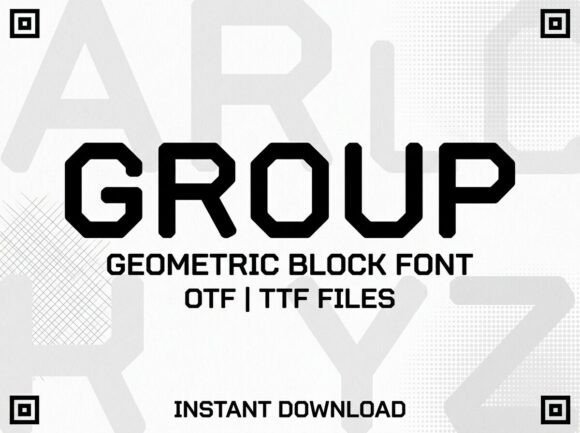
Unleash Your Creativity with Group Font
Do you remember the moment when a single design element suddenly clicked into place, and your entire project came together in a flash of inspiration? That’s exactly what Group Font is designed to spark in your creative journey. This stunning decorative display font is the ultimate game-changer for designers who crave attention-grabbing headlines, artistic logos, and unique packaging that sets them apart from the crowd.
Group Font is a masterclass in bold, eye-catching typography, featuring unique artistic elements that demand to be seen. With its versatility and professional finish, it’s the perfect addition to any designer’s toolkit. Whether you’re a seasoned pro or just starting out, Group Font is an invaluable asset that will elevate your designs and leave a lasting impression on your audience.
- Unique Characteristics: Group Font features a unique blend of modern and vintage elements, making it an ideal choice for designers seeking a distinctive look.
Group Font Review
Overall, Group Font is a solid choice for your next project, but it has its pros and cons. Here’s what I think.
- Group Font has a great balance of modernity and versatility, making it suitable for a wide range of applications, from web design to print media.
- The font family includes a variety of weights and styles, giving you plenty of options to choose from and creating a cohesive look for your project.
- Group Font is highly legible, even at smaller font sizes, making it a great choice for body text.
- Group Font lacks a strong personality, making it feel somewhat generic and unremarkable compared to other font families.
- The font family is not particularly well-suited for headlines or titles, as it can feel too plain and lacking in visual impact.
- Group Font may not be the best choice for projects that require a lot of creative freedom or experimentation, as it is a relatively safe and conservative choice.
Overall, Group Font is a reliable and practical choice for your next project, but it may not be the most exciting or innovative option out there.